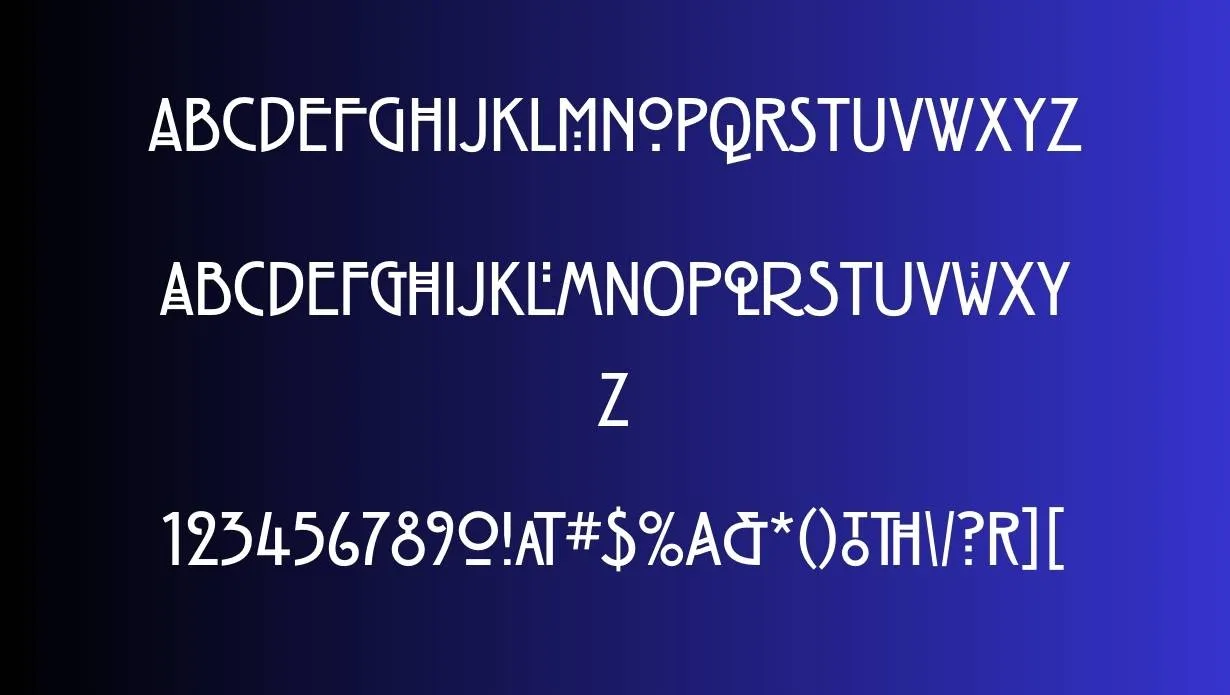
Rennie Mackintosh ITC Font is a decorative and ornate typeface known for its unique and artistic design.
It’s frequently used in artistic and vintage-themed projects, retro branding, and artistic endeavors that seek to convey a sense of creativity and nostalgia.
This font adds a touch of artistic charm and historical aesthetics to your design work. Transform your design project into a captivating masterpiece by including this typeface.
| Name | Rennie Mackintosh ITC Font |
| Designer | Phill Grimshaw |